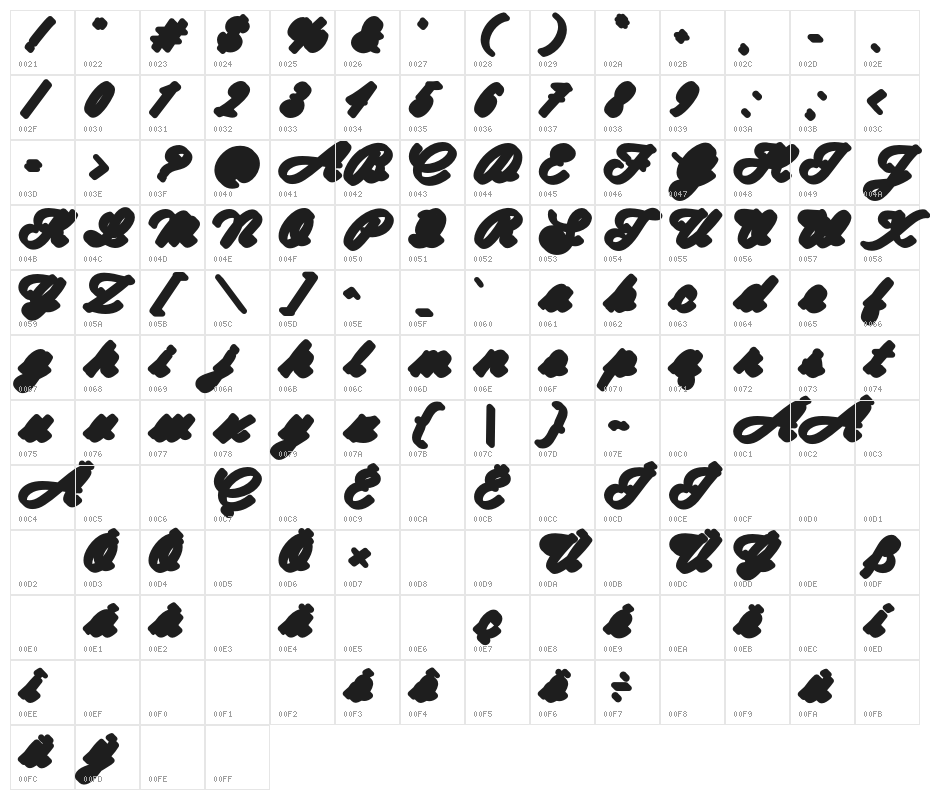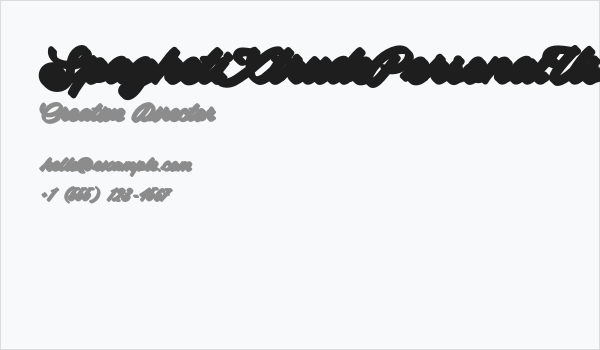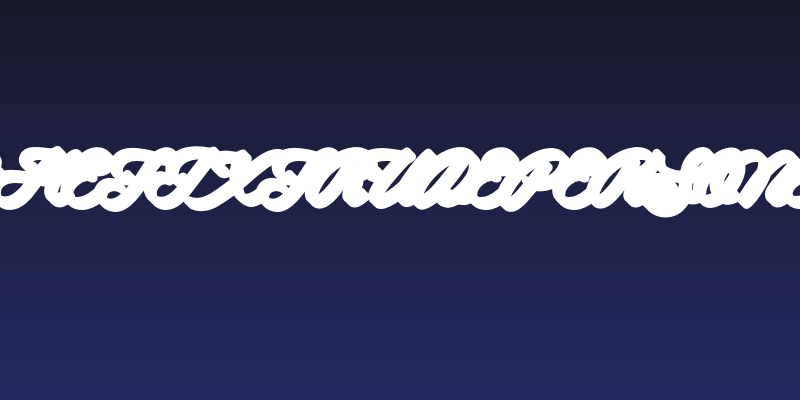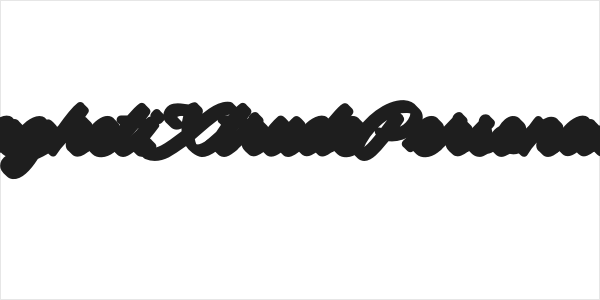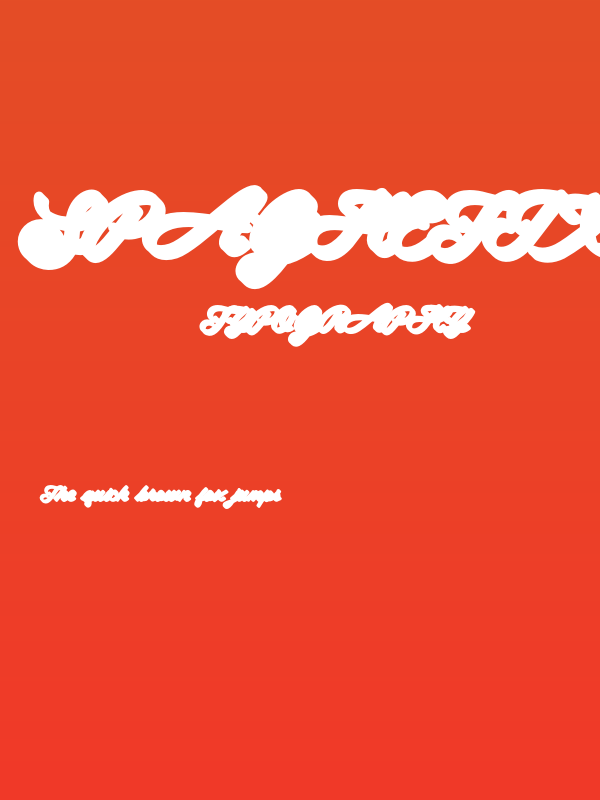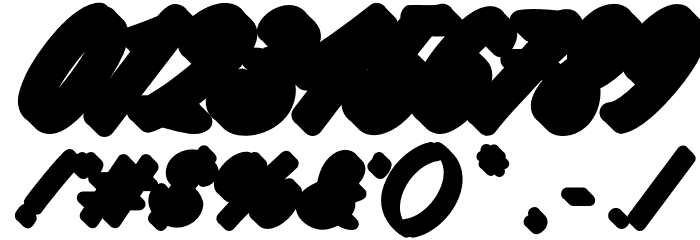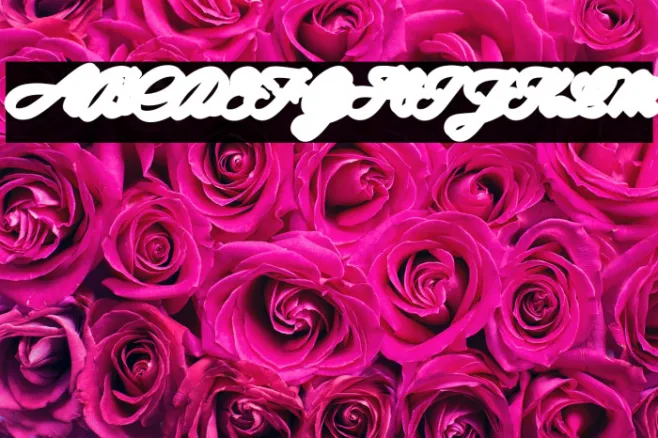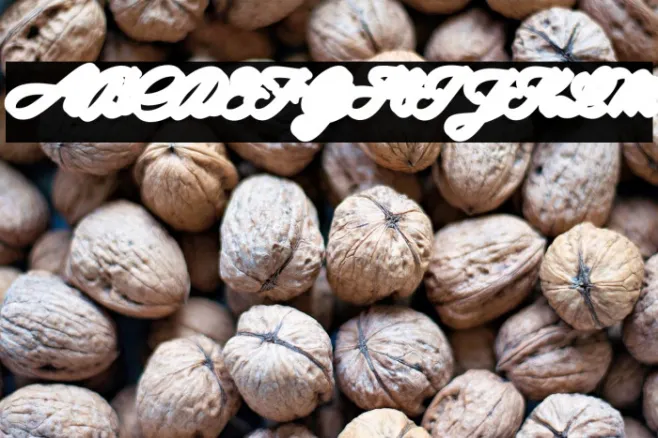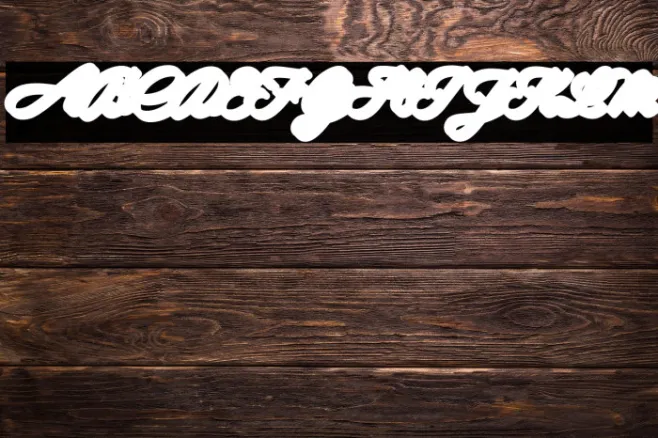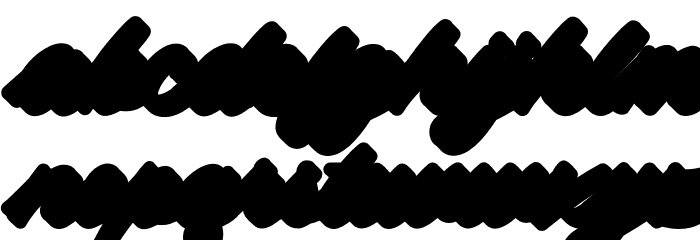
SpaghetiXtrudePersonalUse Font
SpaghetiXtrudePersonalUse Description
This font features a bold, expressive script style with a strong emphasis on fluidity and movement. The characters are interconnected, creating a seamless flow that mimics natural handwriting. The strokes are thick and consistent, giving the font a robust and dynamic appearance. The overall design is playful yet elegant, making it suitable for creative and artistic projects. The uppercase and lowercase letters maintain a cohesive style, while the numbers and special characters are designed to match the font's energetic and lively aesthetic.
| Proposed Projects | Ideal for creative projects such as invitations, greeting cards, logos, and branding materials that require a personal and artistic touch. |